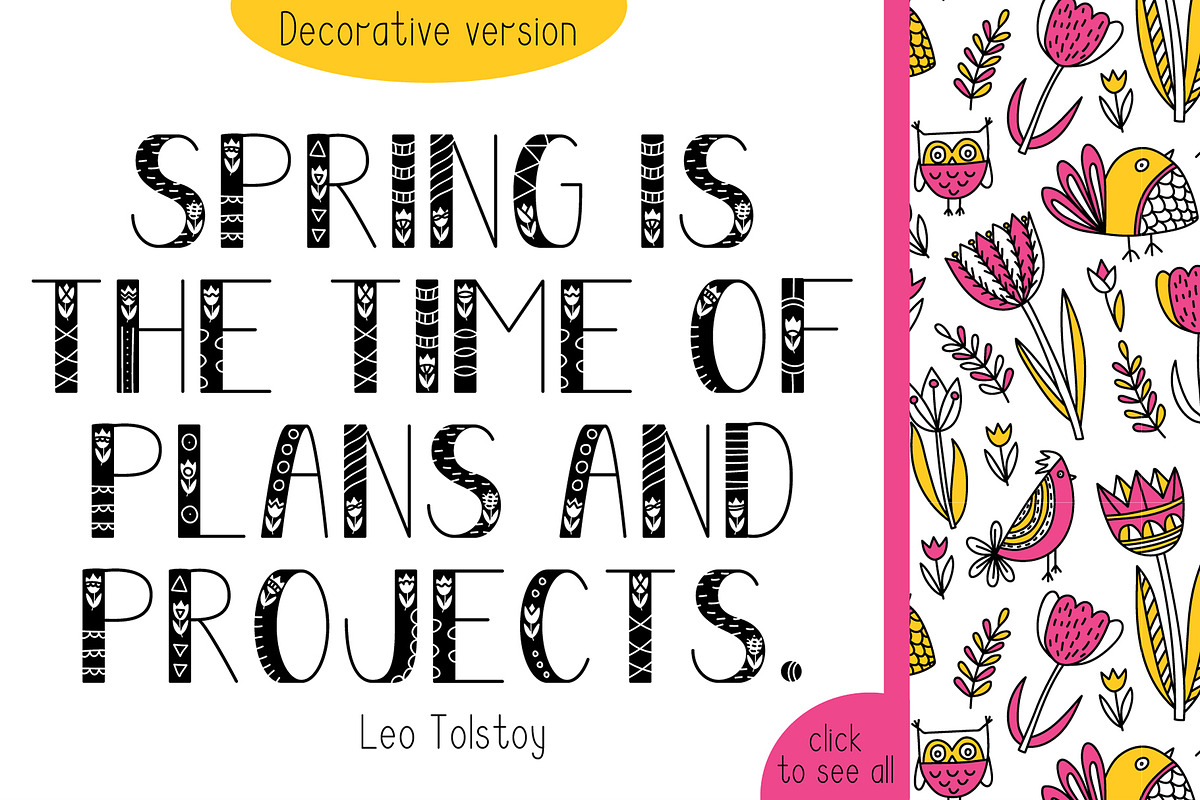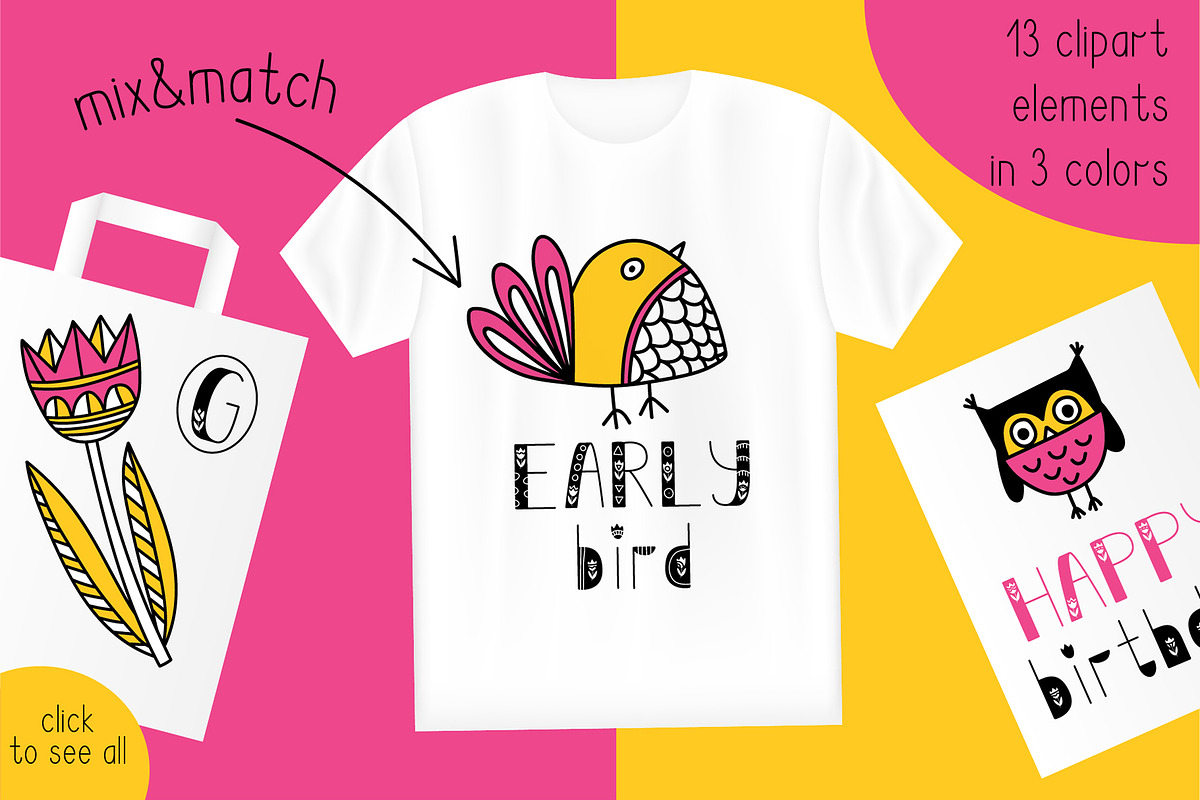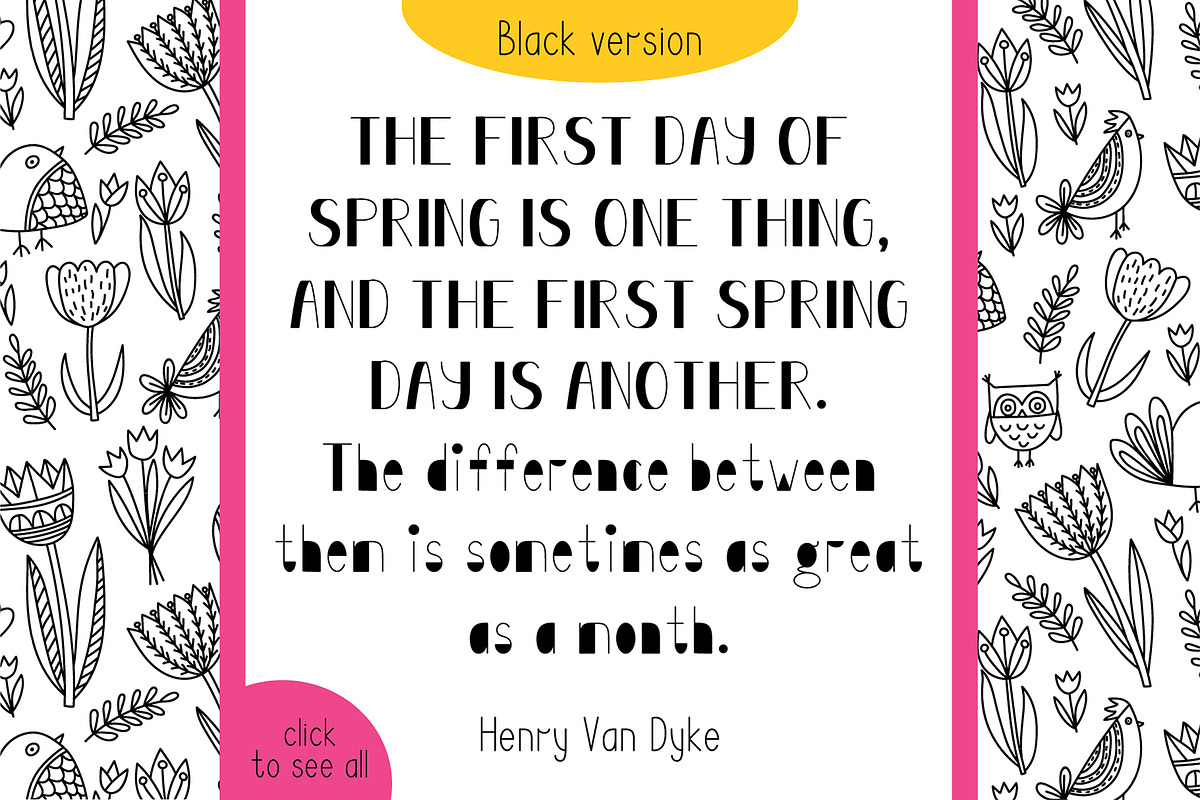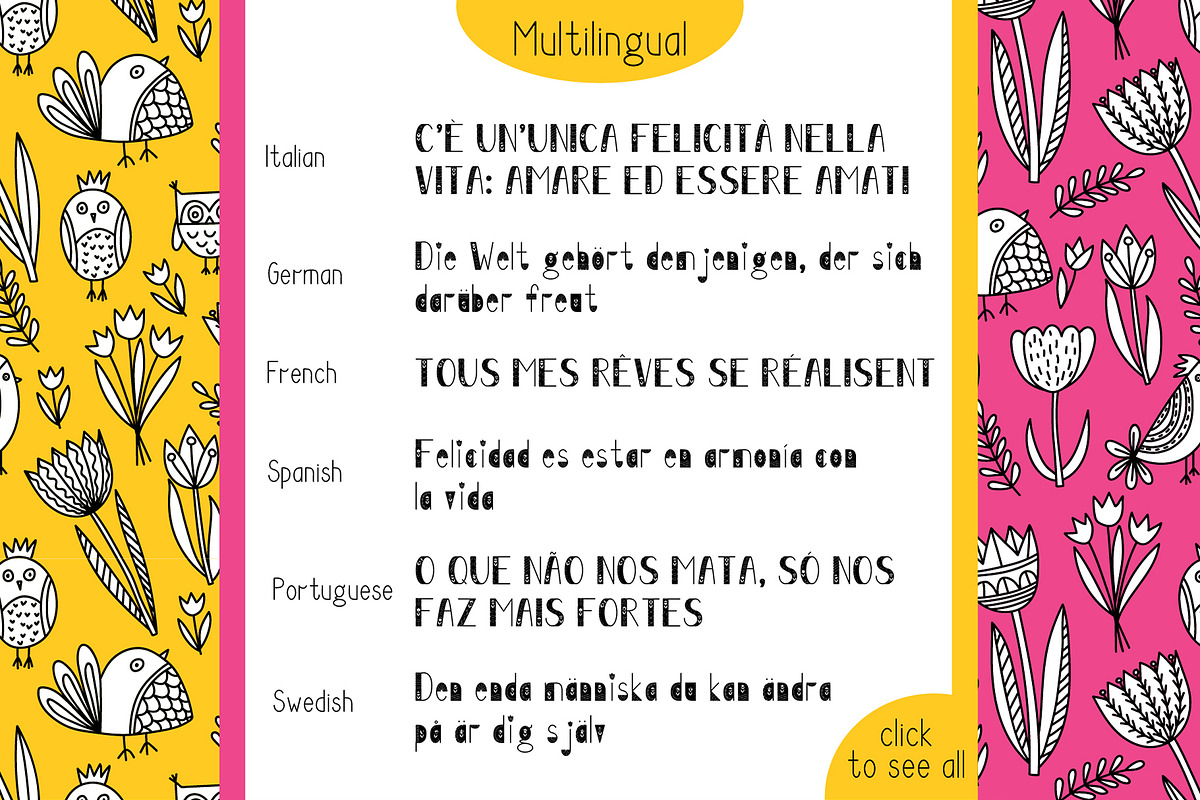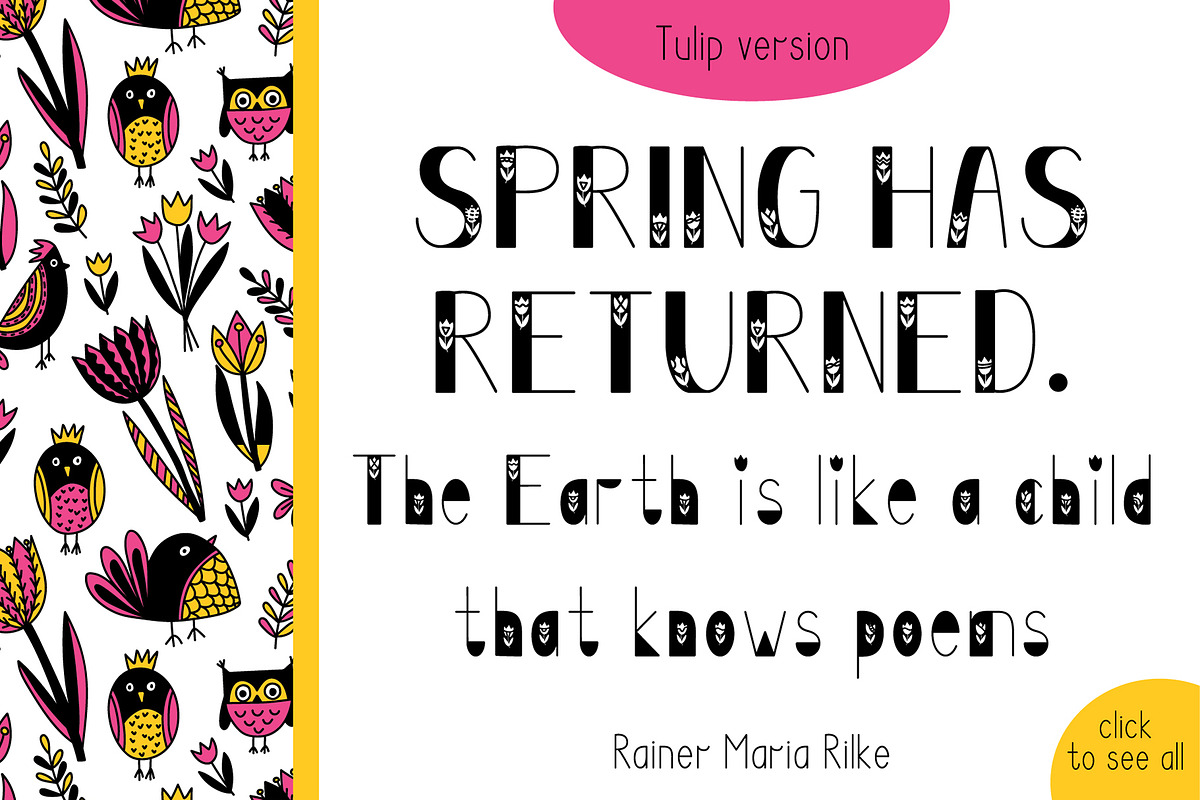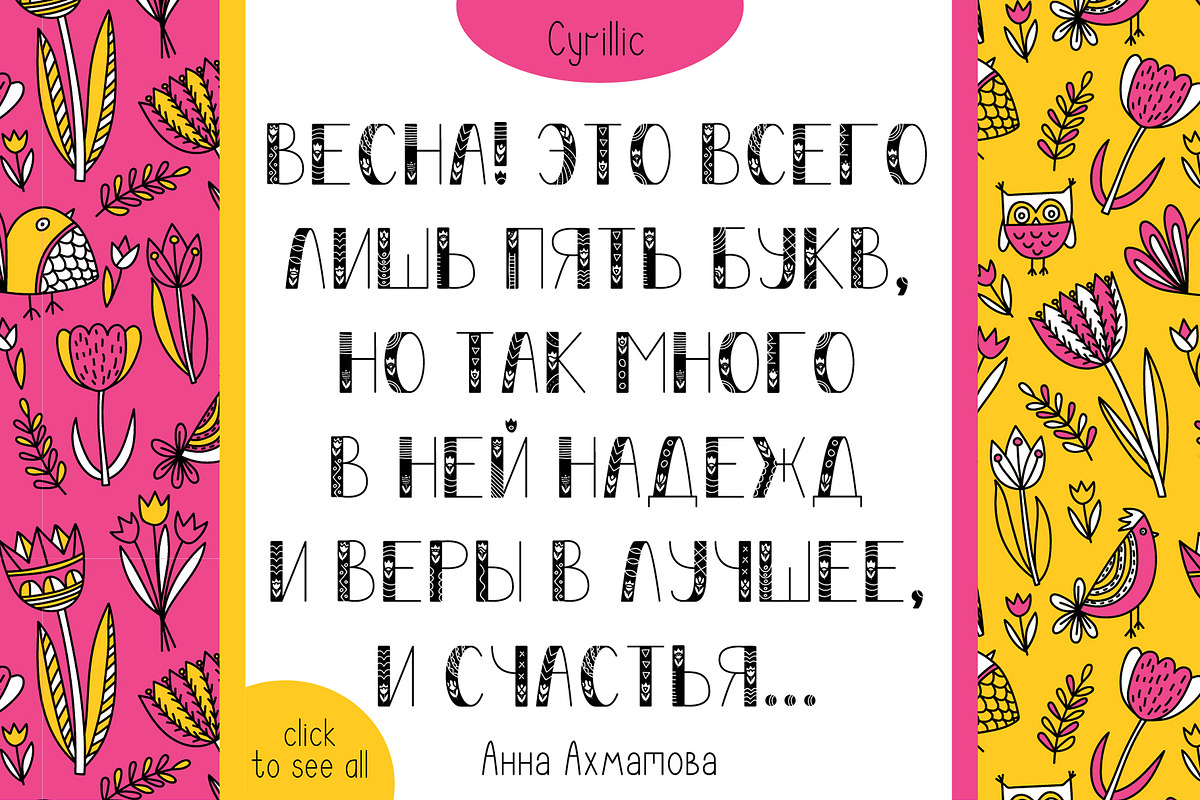
Tulip Font Family
Introducing my second font! Tulip is a spring and fun font based on my Freedom Font Family!
3 Fonts! Ornamental, Tulip and Black
uppercase & lowercase letters
numbers & punctuation
language support (European)
BONUS! Clipart&Patterns